24 Free Christmas Fonts for Crafters: Cricut Cuts, Color Fonts and Holiday Cards
Christmas crafting usually starts with a few words: a name on an ornament, “Merry and Bright” on a mug, a family name across matching pajama shirts. A free font is often all you need for that, as long as it has the right shape for the job: a light script for tags, heavy letters for vinyl, a color font for sublimation, a framed initial for personalized gifts.
This list gathers 24 free Christmas fonts in four groups: scripts and handwriting, bold display fonts, color fonts for sublimation, and monograms and dingbats for Cricut. Each one comes with notes on the letter shapes, where it works and where it gets difficult.
Free Christmas Script and Handwritten Fonts
These fonts write a greeting the way a hand would. They suit cards, gift tags and invitations, and a few of them are bold enough for vinyl.
1. Christmas Shine Font
by Letterafa Studio
Best For: gift tags, handwritten card greetings, chalkboard signs
Christmas Shine is a thin, monoline handwriting with a loose, slightly bouncy baseline. The preview writes the name in white on a dark chalkboard background, and the final e runs out into a long, flat swash under the word. The author calls it a natural handwritten font and notes that it is PUA encoded, so the swashes are easy to reach.
The fine stroke looks personal on a tag or inside a card. It is too thin for small vinyl cuts, though: little letters tear during weeding. Print it, or cut it large.
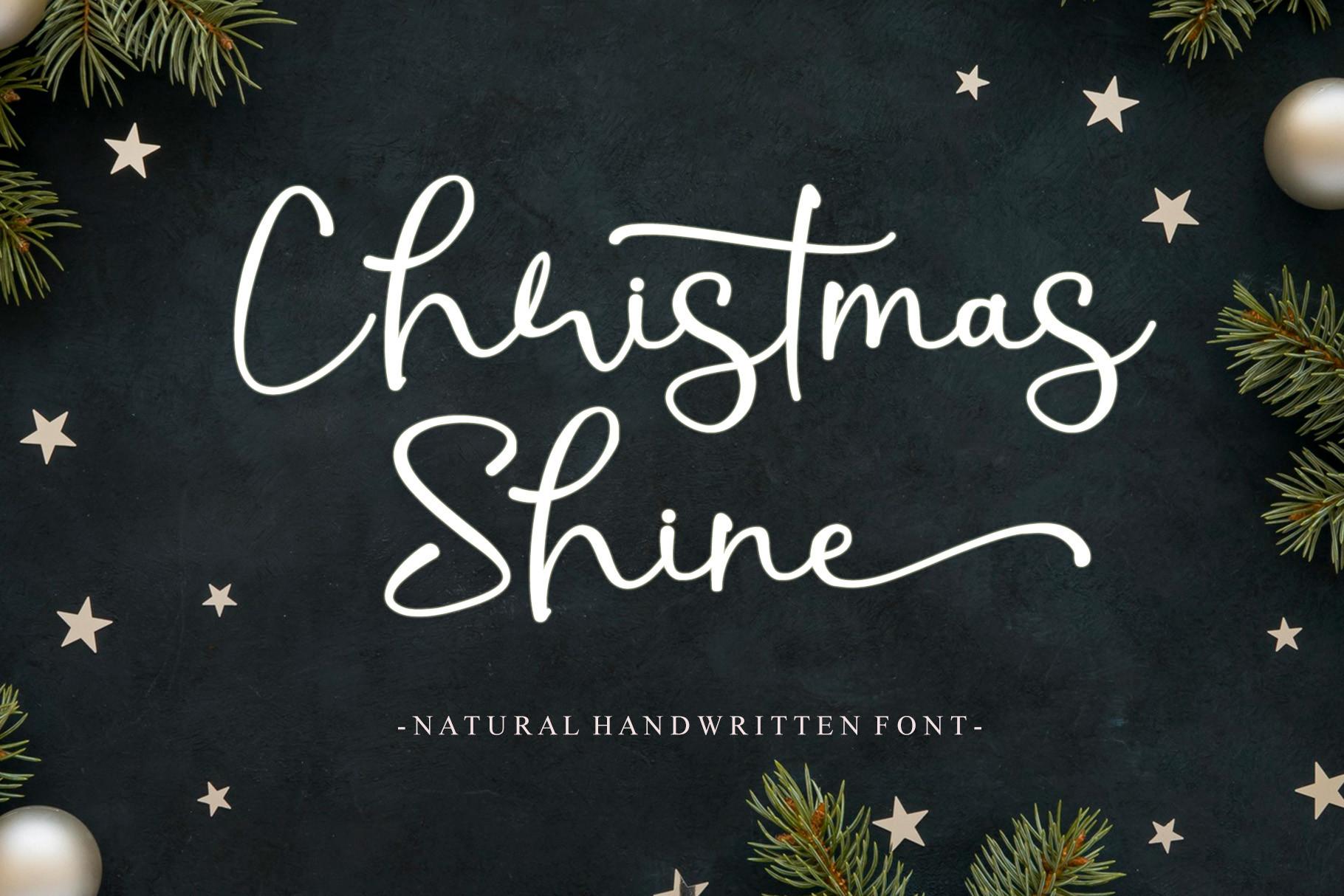
2. Christmas Glooves Font
by Kong Font
Best For: card headlines, invitations, social media graphics
Christmas Glooves is a slanted modern script with swash capitals: the C and G open with wide loops, and the lowercase has a clear contrast between thick downstrokes and hairlines. The preview sets it in silver on red, which shows how well it takes a metallic finish. The author suggests it for logos, branding and t-shirt printing.
The hairlines make it a better fit for print and screens than for cutting. Give it the main line of a card or an invitation and keep the details in a plain font.
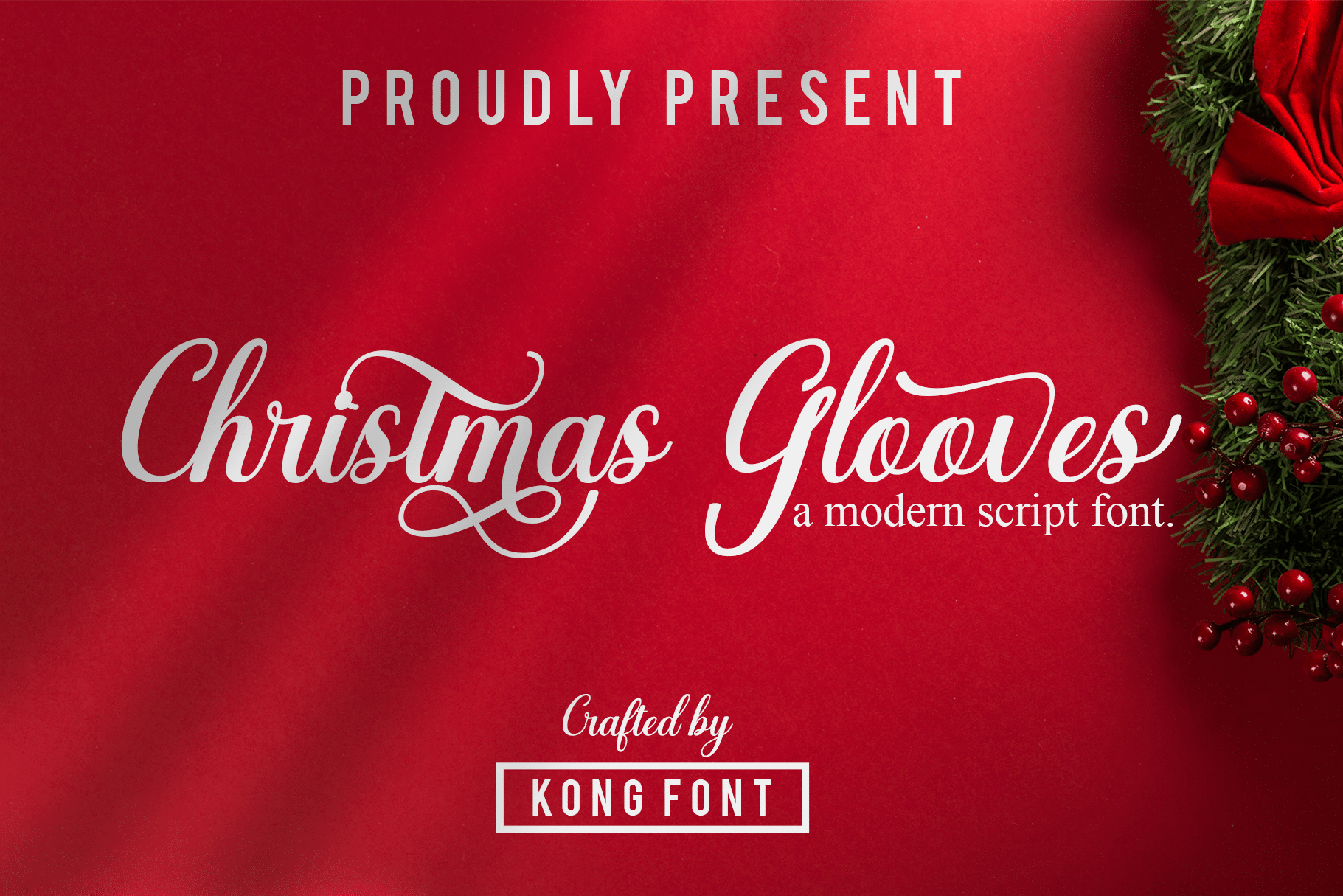
3. Magical Christmas Font
by Lisna.Craft
Best For: vinyl decals, mugs, ornaments
Magical Christmas is a bold, connected monoline script with big looping capitals. The M and C curl far above the other letters, and the l ends in a tall loop. The stroke keeps the same weight all the way through, and the author describes calligraphic influences in a contemporary shape.
Even stroke weight is exactly what a cutting machine likes: the letters join into one piece and weed cleanly. That makes it one of the easiest scripts in this list for vinyl names on mugs and ornaments.
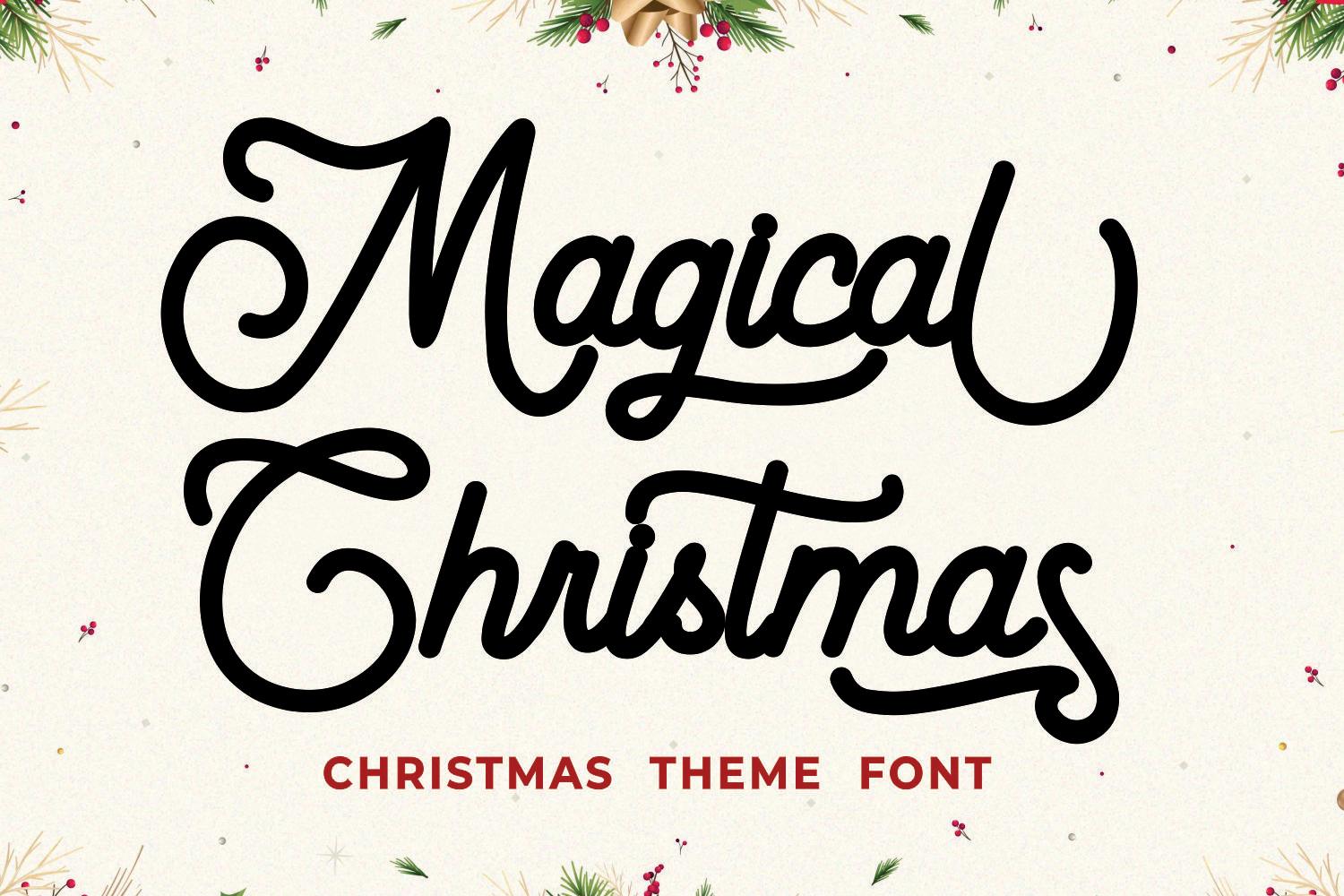
4. Farmhouse Christmas Font
by Misterletter.co
Best For: farmhouse signs, pillow covers, iron-on shirts
Farmhouse Christmas is a heavy brush script with rounded strokes and tight joins between letters. In the preview, black letters sit inside a thick white outline over a photo of a lit gingerbread house, like a sticker.
The weight carries across a room, so it reads well on wood signs and pillows. Because the letters sit close together, open the spacing a little before cutting so thin bridges don’t form between them.
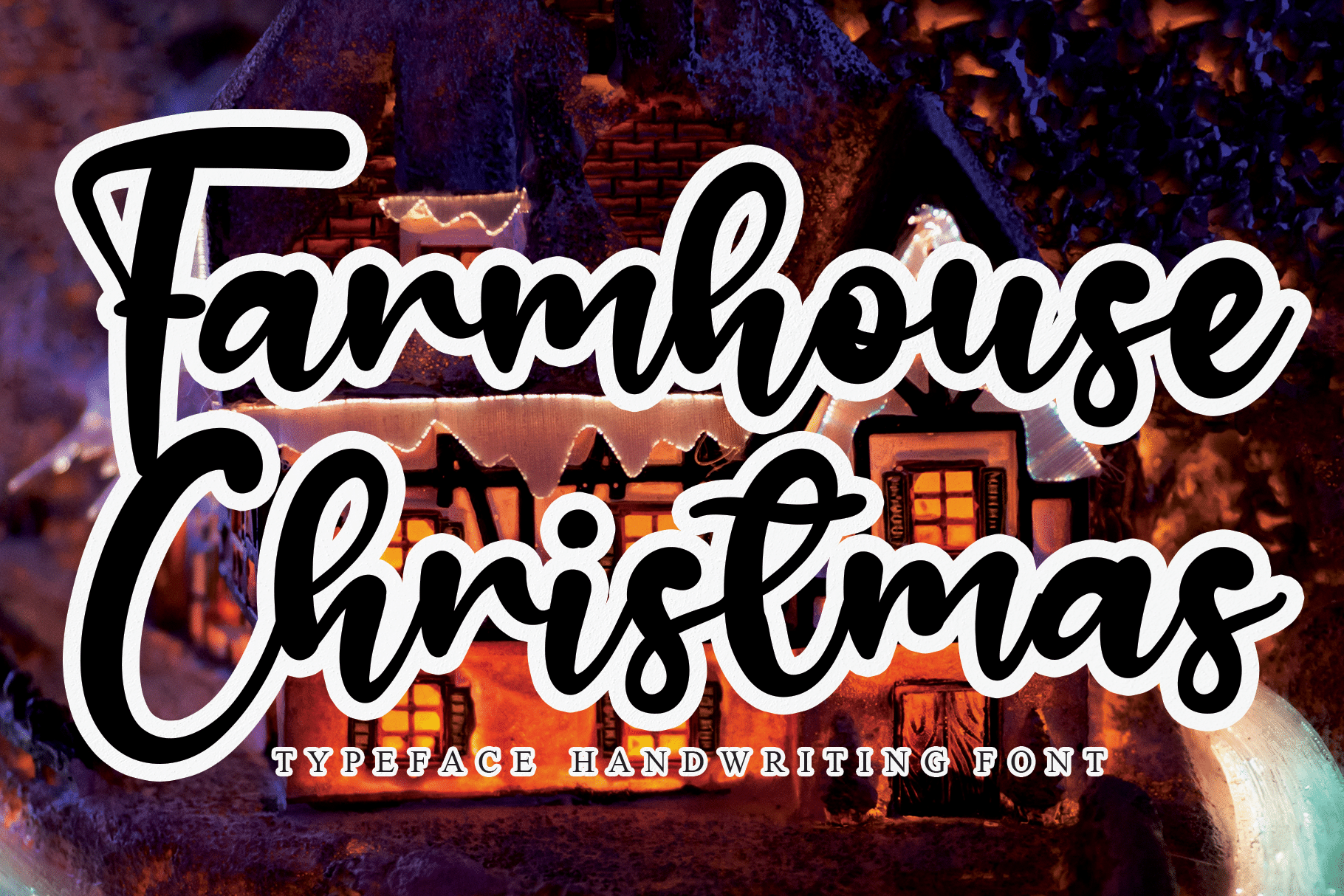
5. Christmas Beauty Day Font
by onotype
Best For: holiday invitations, card fronts, printable wall art
Christmas Beauty Day is a slanted, high-contrast script with long entry strokes. The final s of “Christmas” ends in a small heart-shaped loop, and the words “Beauty Day” below show the lowercase at a smaller size. White letters on red keep the look soft and classic.
This is a font for printing, where the hairlines stay intact. It suits a one-line greeting on an invitation or a framed print better than a long block of text.
6. Hello Santa Font
by Kong Font
Best For: t-shirt quotes, stickers, bold card greetings
Hello Santa is a bold, upright brush script with tall capitals and short, rounded lowercase. The strokes are thick and a little rough at the ends, like a marker. The author calls it a modern script for merchandise, invitations and web designs, and the font is PUA encoded.
Cut One Test Word Before the Holiday Rush
December is a bad month to discover that a script tears during weeding or that a color font shows up flat in your software. Download two or three fonts from this list now and run one short word through your real process: print it, cut it or press it.
Keep the fonts that survive the test and build your Christmas projects around them. A small, proven set is faster to work with than a folder full of untested downloads.